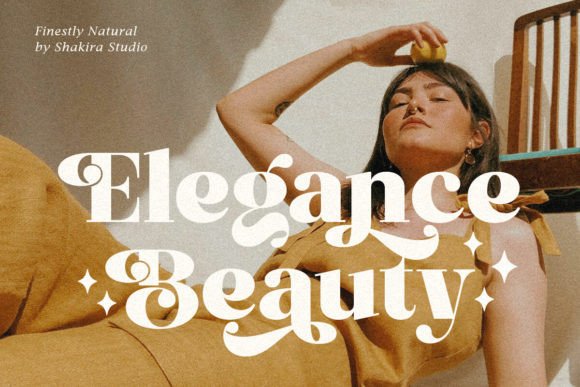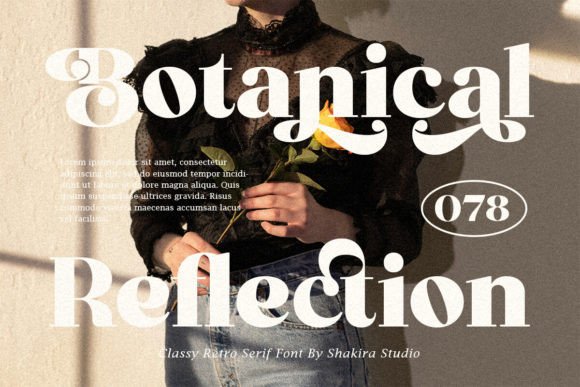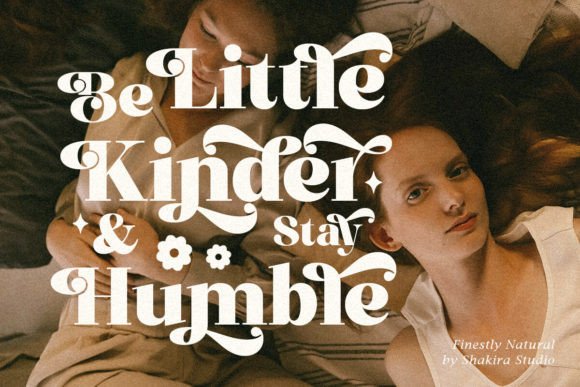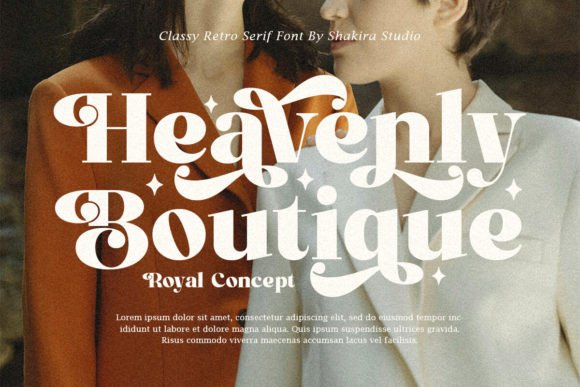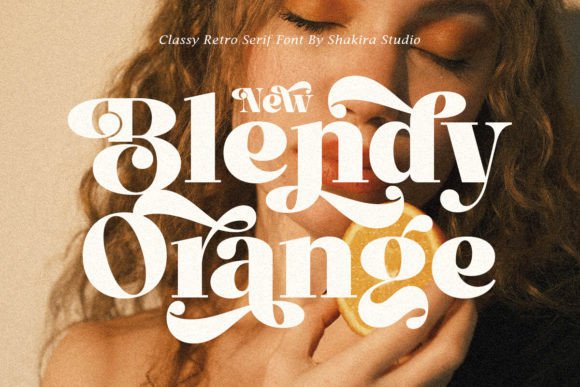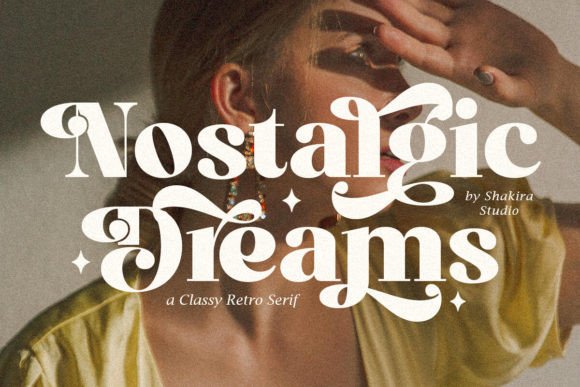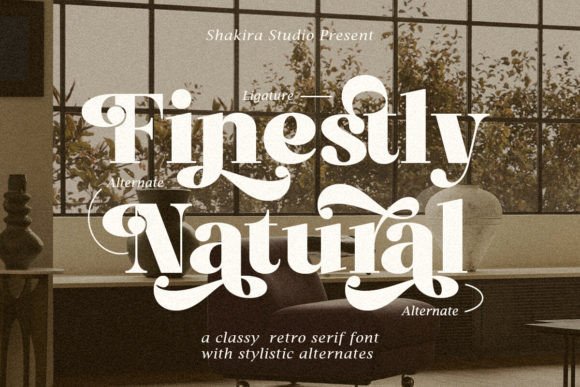
Introducing Finestly Natural: Elevate Your Designs with Timeless Elegance
In the world of typography, a font can make all the difference in creating a lasting impression. For designers and crafters seeking to infuse their projects with a touch of sophistication and retro classiness, Finestly Natural emerges as a stellar choice. This serif font is meticulously designed to bring an air of elegance and timelessness to any creative endeavor, be it logo design, invitations, or any other visual project.
The Essence of Finestly Natural
Finestly Natural is not just another font; it’s a statement of style and refinement. Its serif design pays homage to traditional typography while incorporating modern elements that make it versatile and contemporary. The font’s natural flow and classic appearance make it an excellent choice for projects that demand a high level of sophistication.
Key Features of Finestly Natural
- Stylistic Alternates: One of the standout features of Finestly Natural is its inclusion of stylistic alternates. These variations allow designers to add a unique twist to their text, providing an opportunity to play with the visual flow and create a more personalized look.
- Ligatures: The font also comes equipped with ligatures, which are special character combinations that join together to create a more harmonious and aesthetically pleasing text. Ligatures in Finestly Natural add a layer of elegance and fluidity to the text, making it perfect for high-end designs.
- Retro Classiness: Finestly Natural embodies a retro classiness that is hard to find in modern fonts. Its design is reminiscent of classic serif fonts but with a softer, more approachable feel. This makes it ideal for designers looking to create a vintage or luxury vibe in their work.
Applications of Finestly Natural
The versatility of Finestly Natural makes it suitable for a wide range of design projects. Here are some of the areas where this font truly shines:
- Logo Design: For brands aiming to establish a legacy or convey a sense of tradition and reliability, Finestly Natural can be a perfect fit. Its classic look can help create a memorable and impactful logo.
- Invitations and Stationery: Whether it’s wedding invitations, business cards, or letterheads, Finestly Natural adds a touch of elegance and formality. It’s the perfect choice for those who want their stationery to reflect a sophisticated personality.
- Creative Projects: Beyond traditional applications, Finestly Natural can also be used in various creative projects such as posters, flyers, and digital content. Its timeless appeal ensures that the design remains relevant for years to come.
Why Choose Finestly Natural?
In a sea of modern and minimalist fonts, Finestly Natural stands out for its unique blend of classic design and contemporary features. Here are a few reasons why designers and crafters are gravitating towards this font:
- Timeless Appeal: Unlike trendy fonts that may quickly become outdated, Finestly Natural boasts a timeless quality. Its classic design ensures that your work remains stylish and relevant over time.
- Versatility: The font’s versatility means it can be used across a variety of projects, from luxury branding to elegant stationery.
- Easy to Read: Despite its elegant design, Finestly Natural maintains a high level of readability. This makes it not only beautiful but also functional for a wide range of applications.
| Font Name | Finestly Natural Font |
| Author | Shakira Studio |
Finestly Natural is more than just a font; it’s a design statement. With its serif elegance, stylistic alternates, and ligatures, it offers designers and crafters a powerful tool to create sophisticated and memorable designs. Whether you’re aiming for a retro vibe or simply want to elevate your project’s aesthetic, Finestly Natural is an excellent choice. Embrace the timeless elegance of Finestly Natural and see how it can transform your designs into works of art.